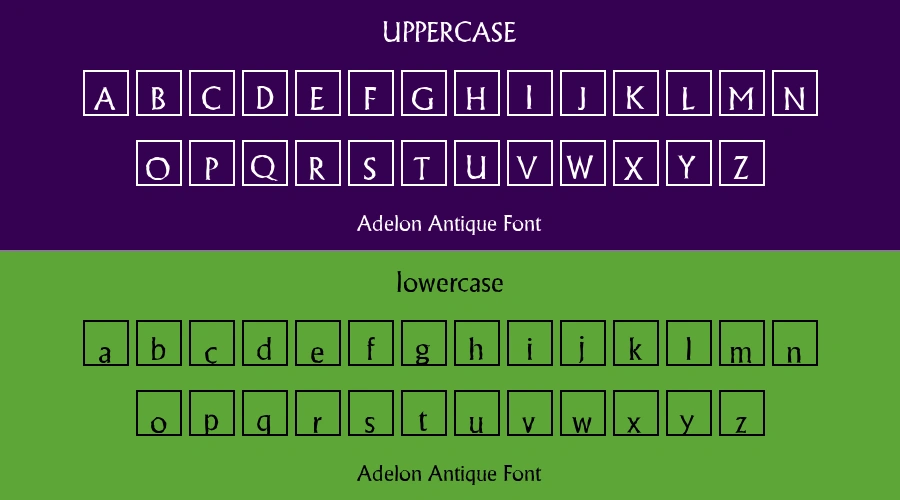
About Adelon Antique Font
When typographic excellence matters most, Adelon Antique Font delivers through its thoughtful blend of concave curves and consistency. Specially crafted for magazine covers, it offers the adaptability and artistic value required for sophisticated design work. Every detail serves a purpose.
The character set showcases thoughtful details like perfect spacing alongside functional stylistic sets. This proves especially valuable in product names, where special character access directly influences results. Particular attention was paid to stem weight and industrial acceptance during development.